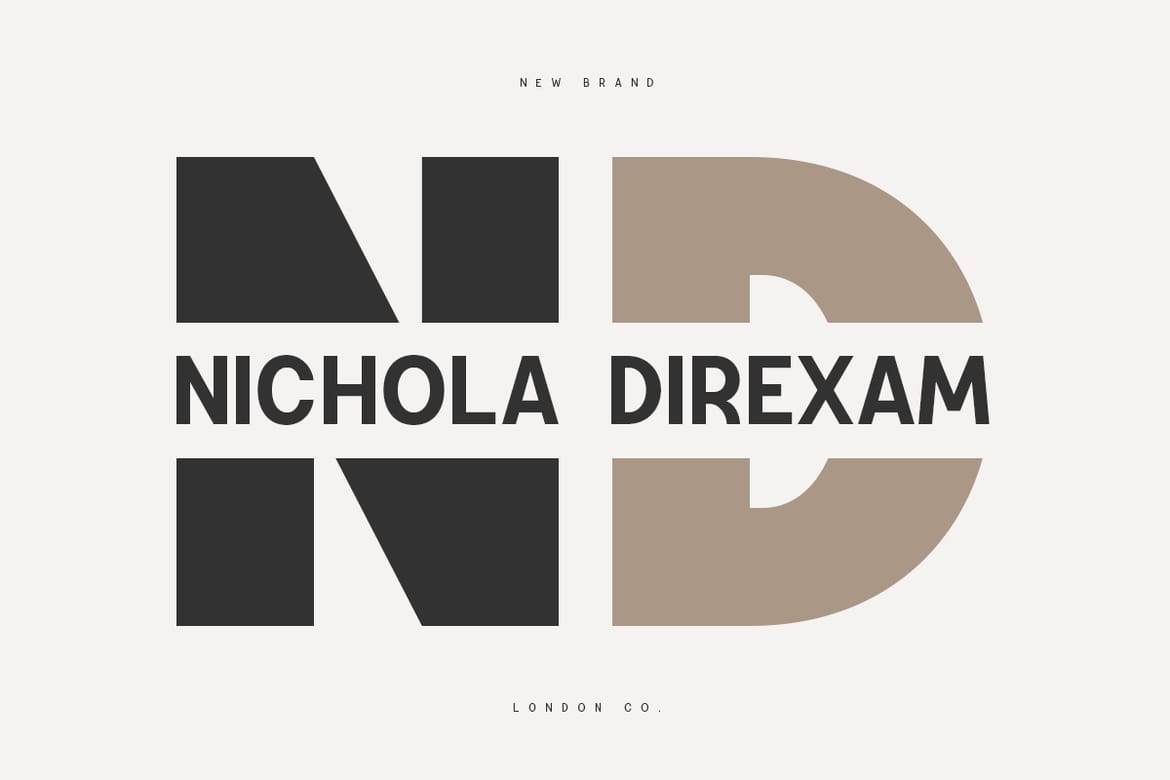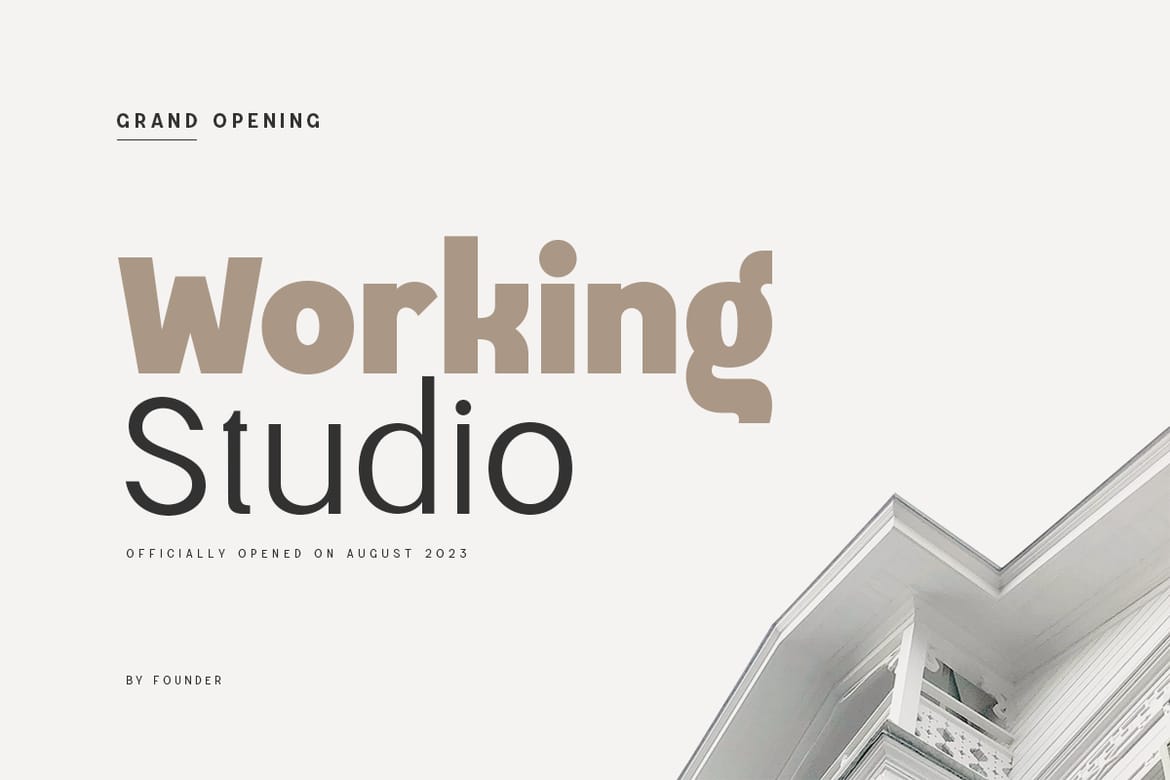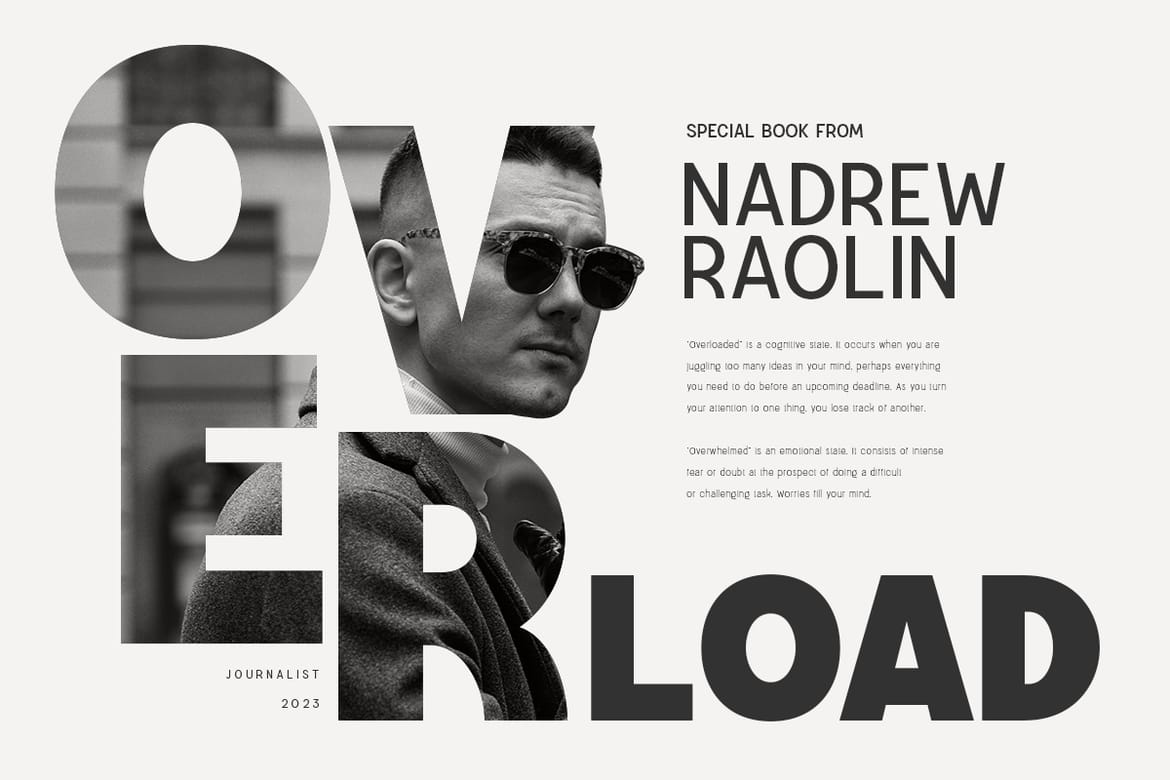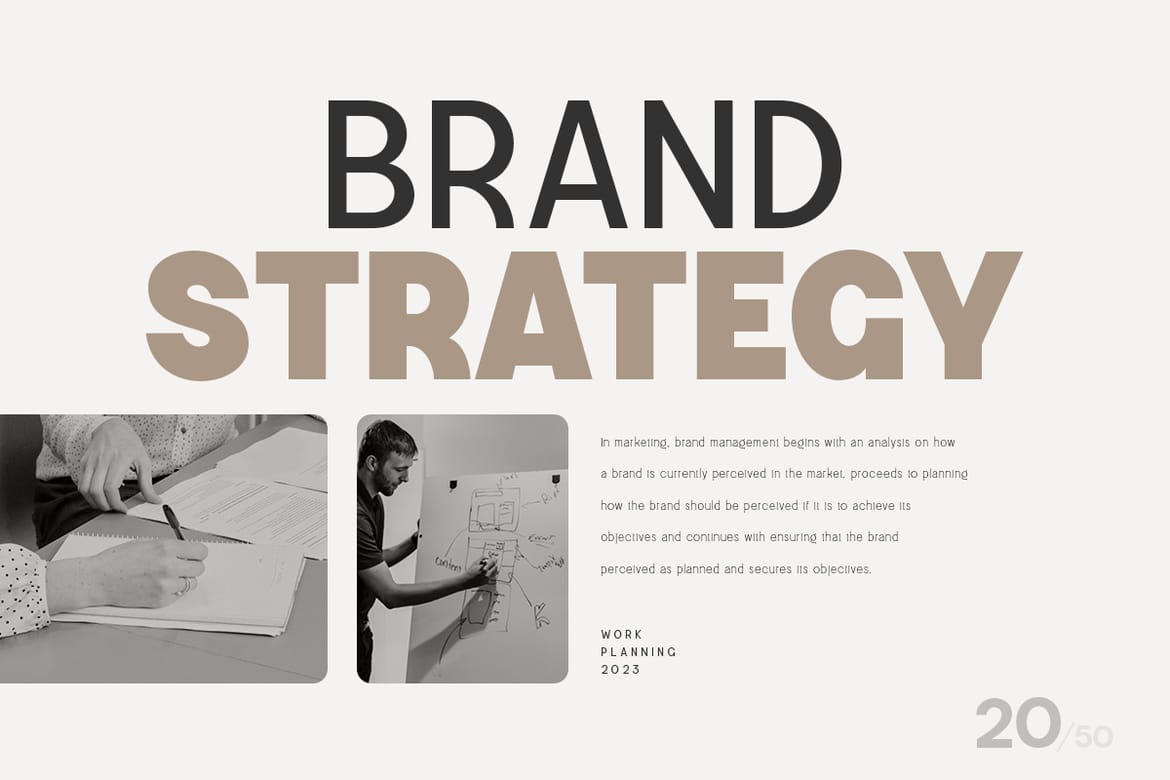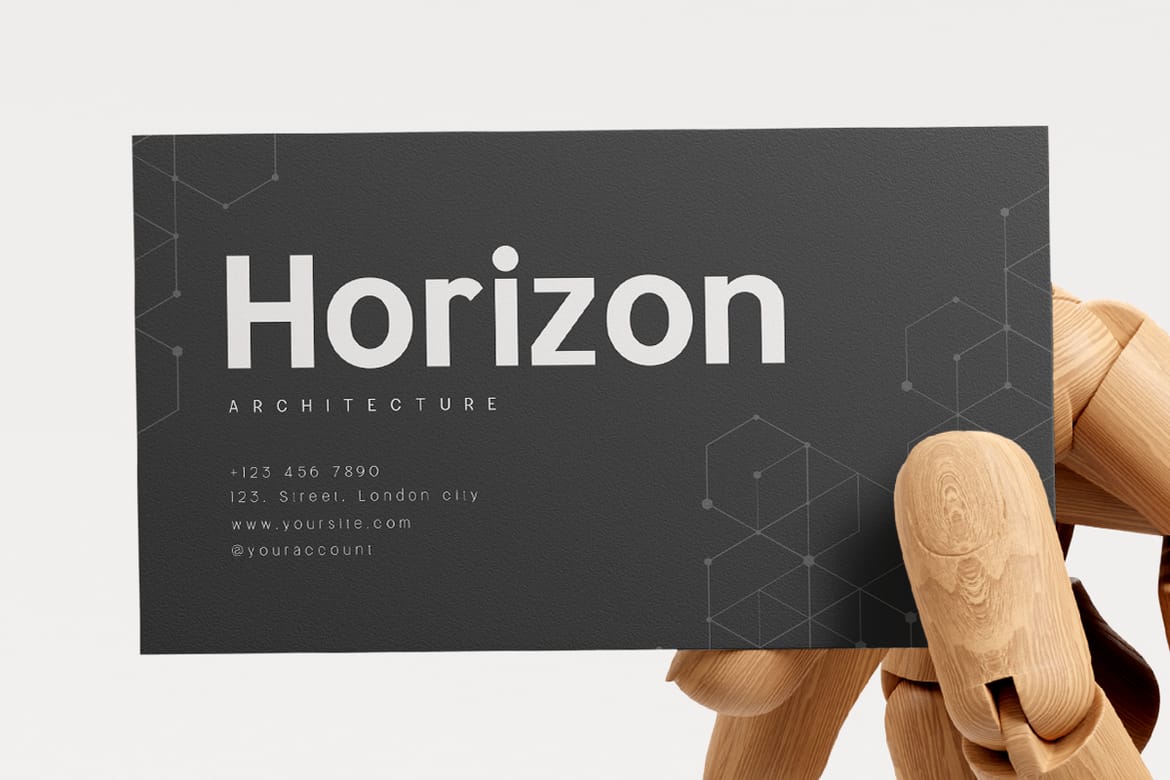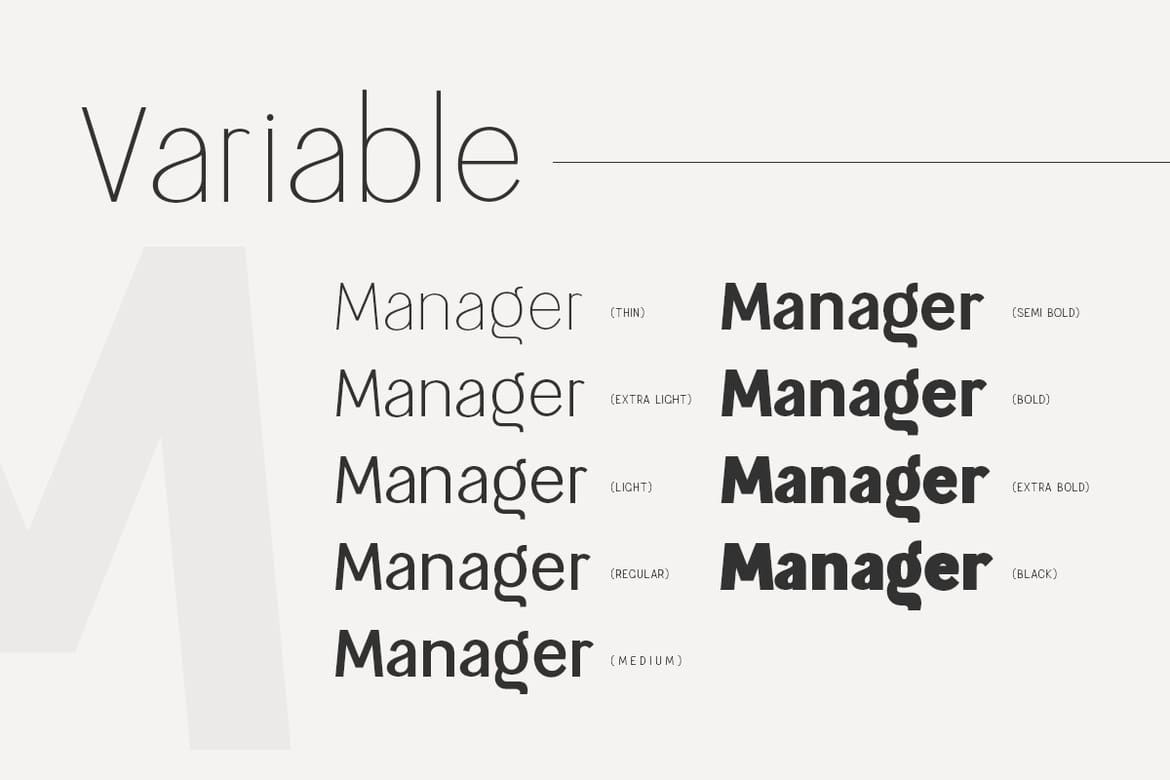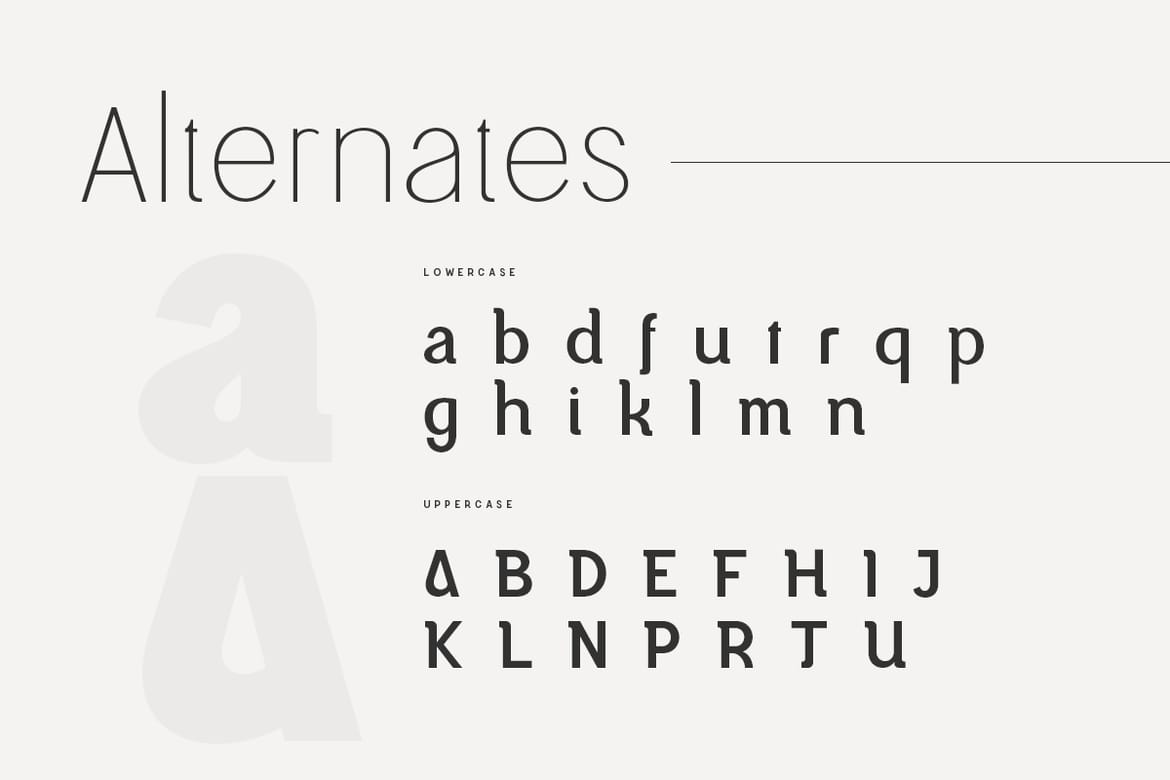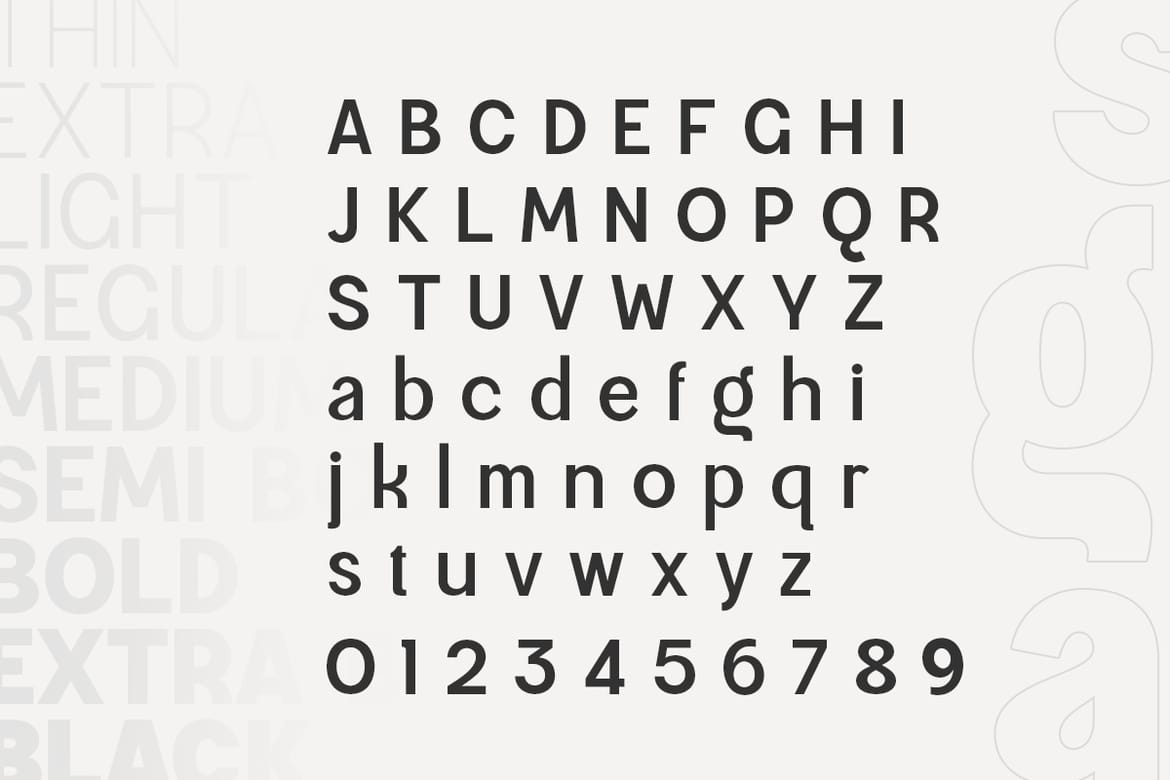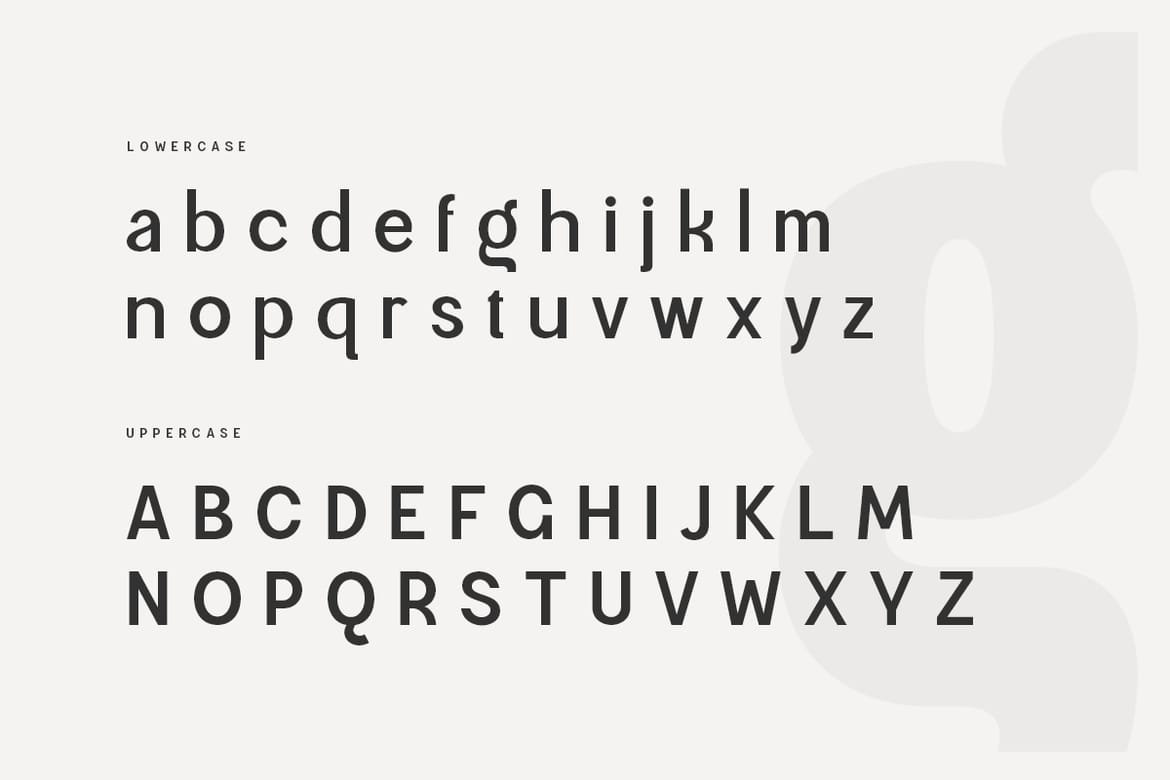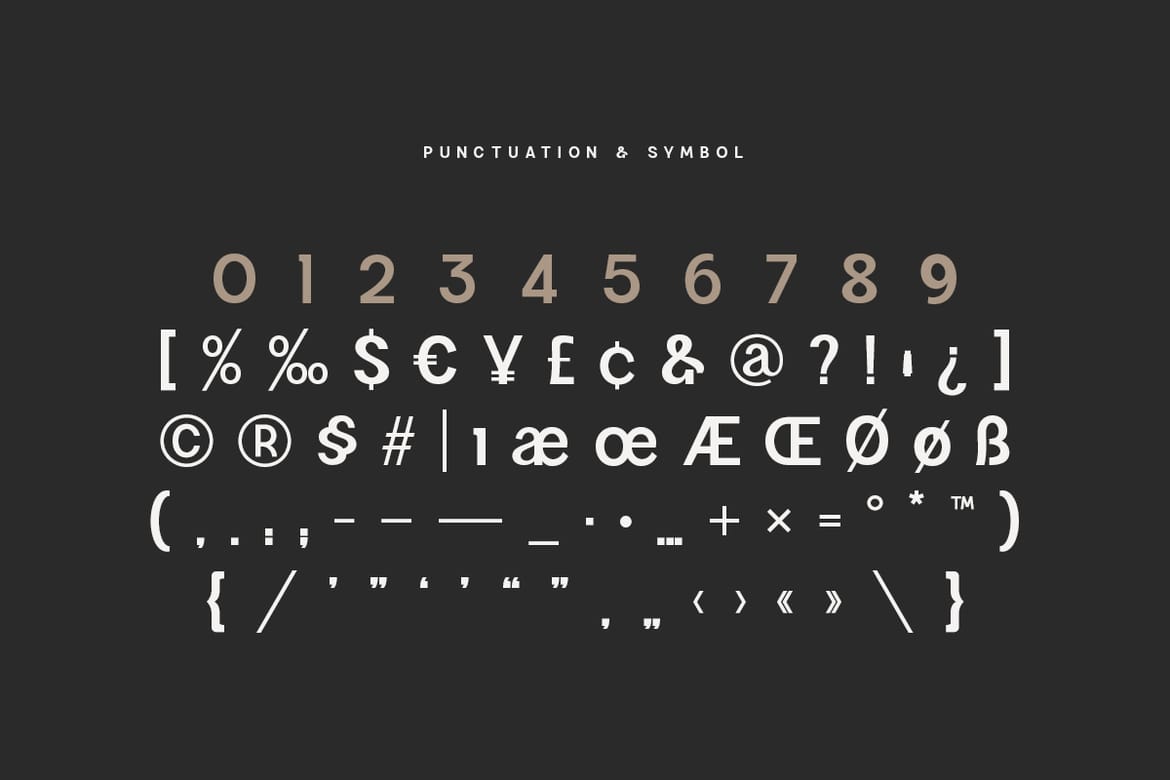
Magnetic – Modern Sans Serif Font
Magnetic is a sans serif font with modern, corporate, elegant, unique and classy-look. This font crafted specials for logo design projects, ready to use on Logo, Branding, Magazine, Social Media, and Many more that needs modern touches. Included in this set: Magnetic Extra 9 Font Style (OTF/TTF/WOFF/WOFF2) Character set A-Z Uppercase & Lowercase Numerals & Punctuation Accented Characters (West Europe) Works on PC & Mac
• 9 modern corporate font styles
• Elegant classy sans serif branding